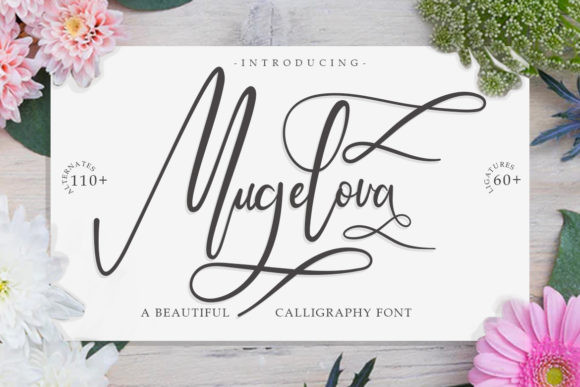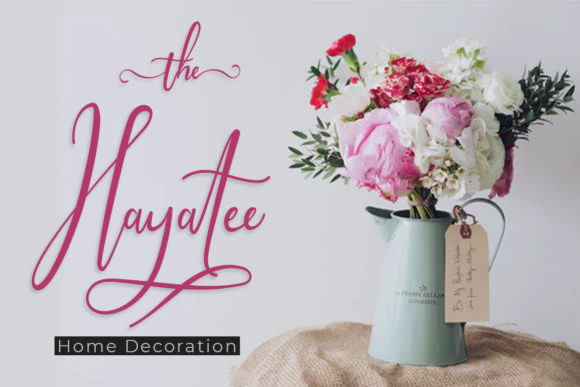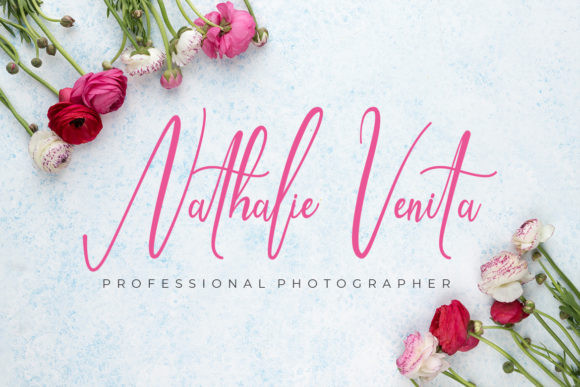
Mugelova Font
Mugelova is a beautiful calligraphy font with an elegant and luxurious style. It is perfect for logos, branding, invitations and much more!